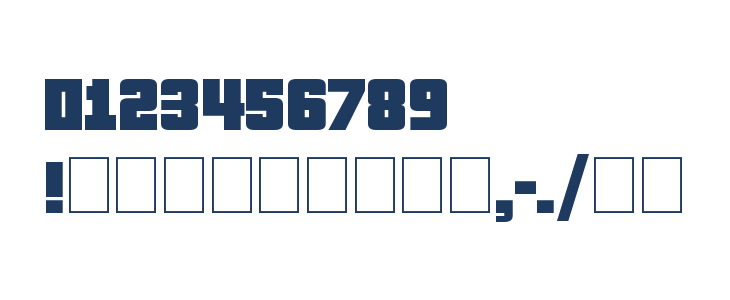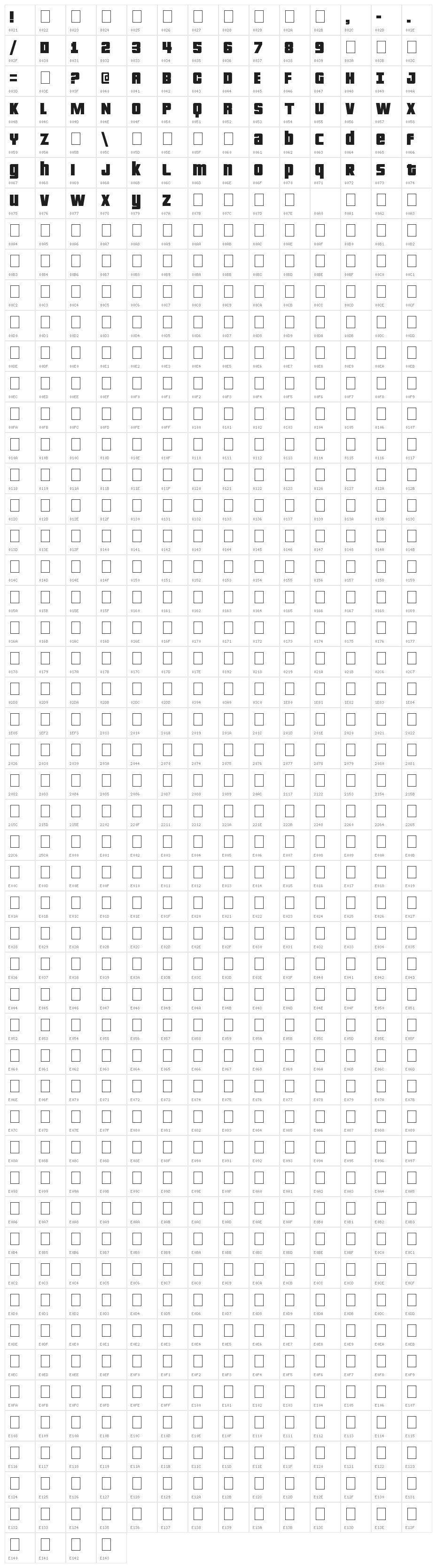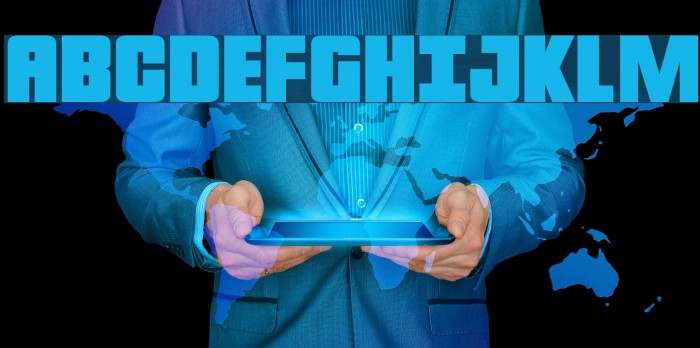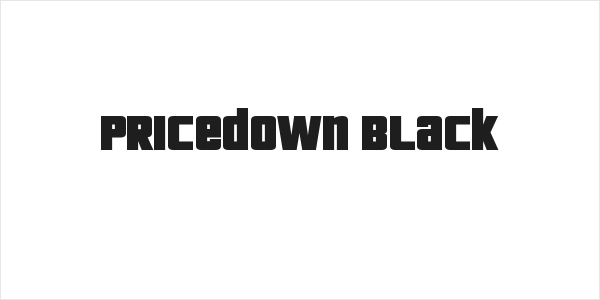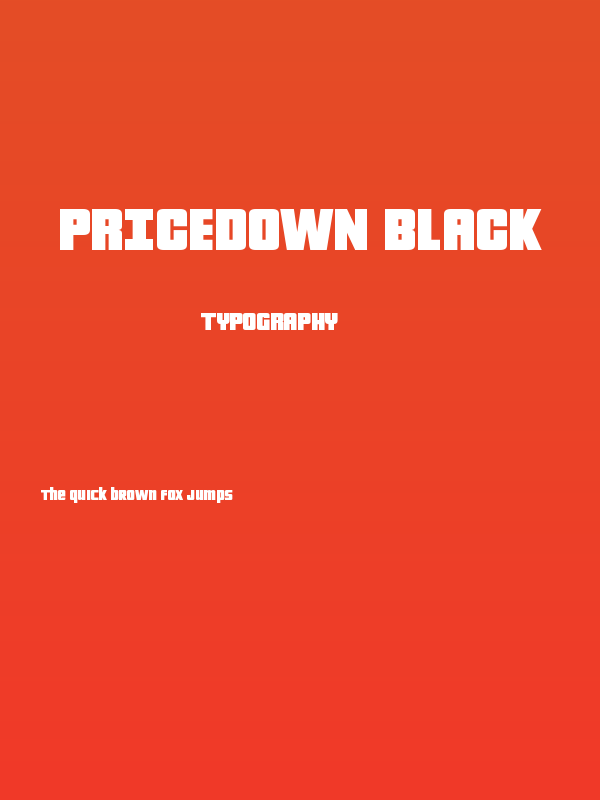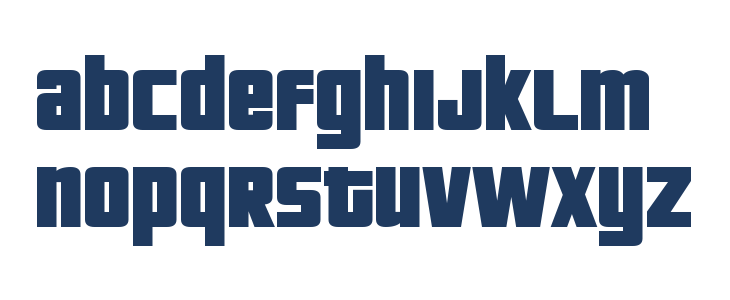
Pricedown Black Font
Pricedown Black Description
This bold and impactful font features a strong, geometric design with thick, blocky letters that convey a sense of power and stability. The uppercase and lowercase characters maintain a consistent weight, creating a uniform appearance. The numerals are equally robust, ensuring clarity and readability. The font's style is reminiscent of retro or vintage designs, making it suitable for projects that require a bold statement. The special characters are designed to match the overall aesthetic, providing a cohesive look across all elements.
| Proposed Projects | Ideal for headlines, posters, logos, and branding materials that require a strong visual impact. |